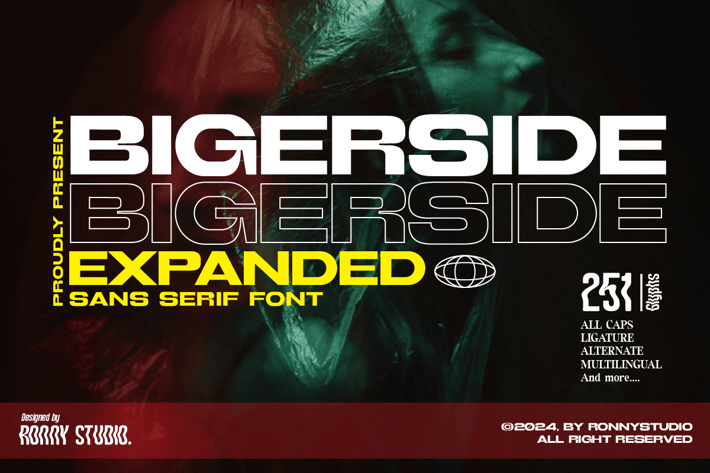
Bigerside - Expanded Sans Serif Font
Bigerside is an all caps font that has a very bold body, but still has high contrast. This font looks very modern when paired with contrasting design colors. This font is impressive and features a clean and elegant font, professionally shaped, and as a result, it will easily match a variety of creations that require a different touch. Add it with confidence to your projects, and you'll love the results. This typeface is perfect for elegant logos, branding, promotions, book covers, magazine layouts, or simply as a stylish text overlay onto any background image.
- All Caps
- numbers and punctuation
- multilingual
- alternates